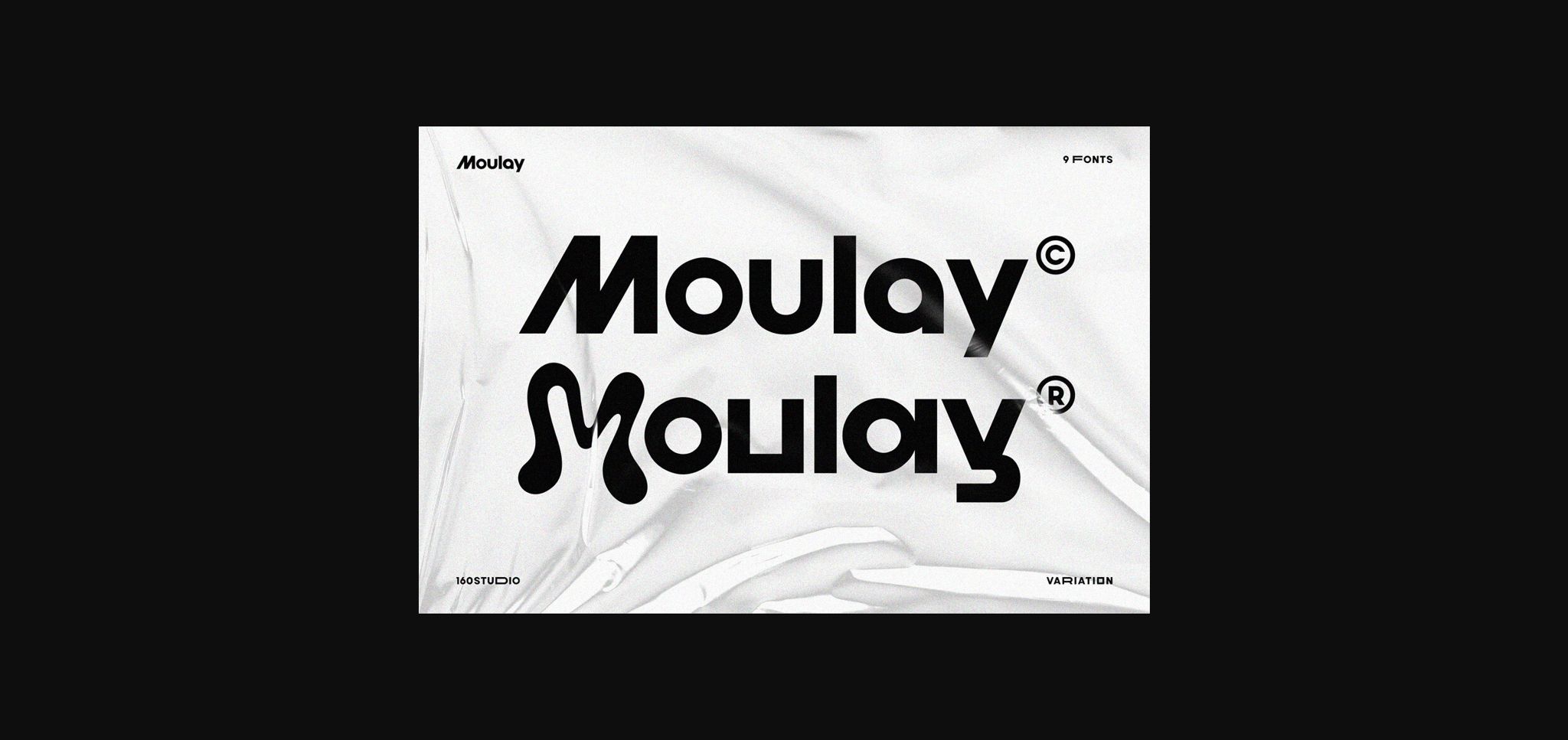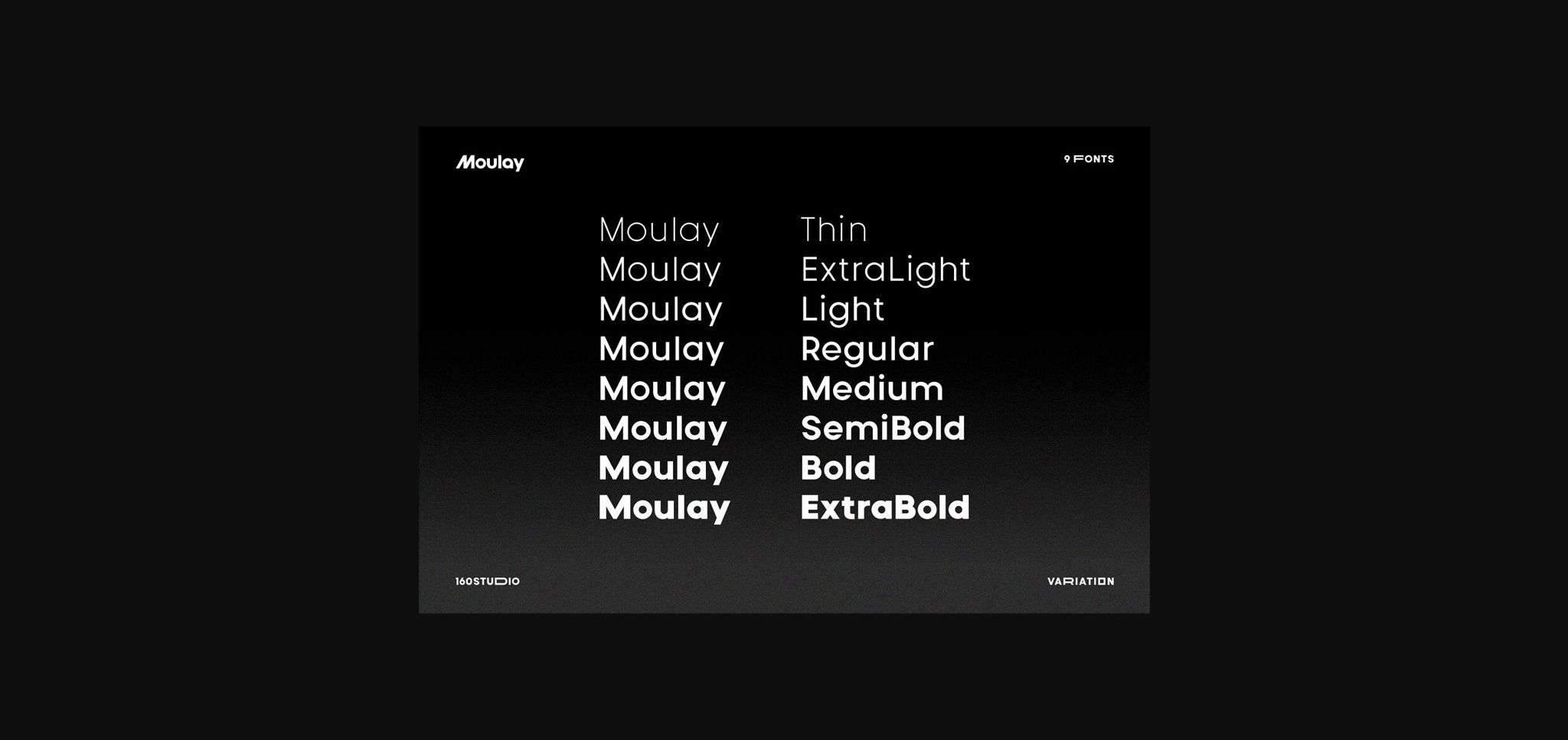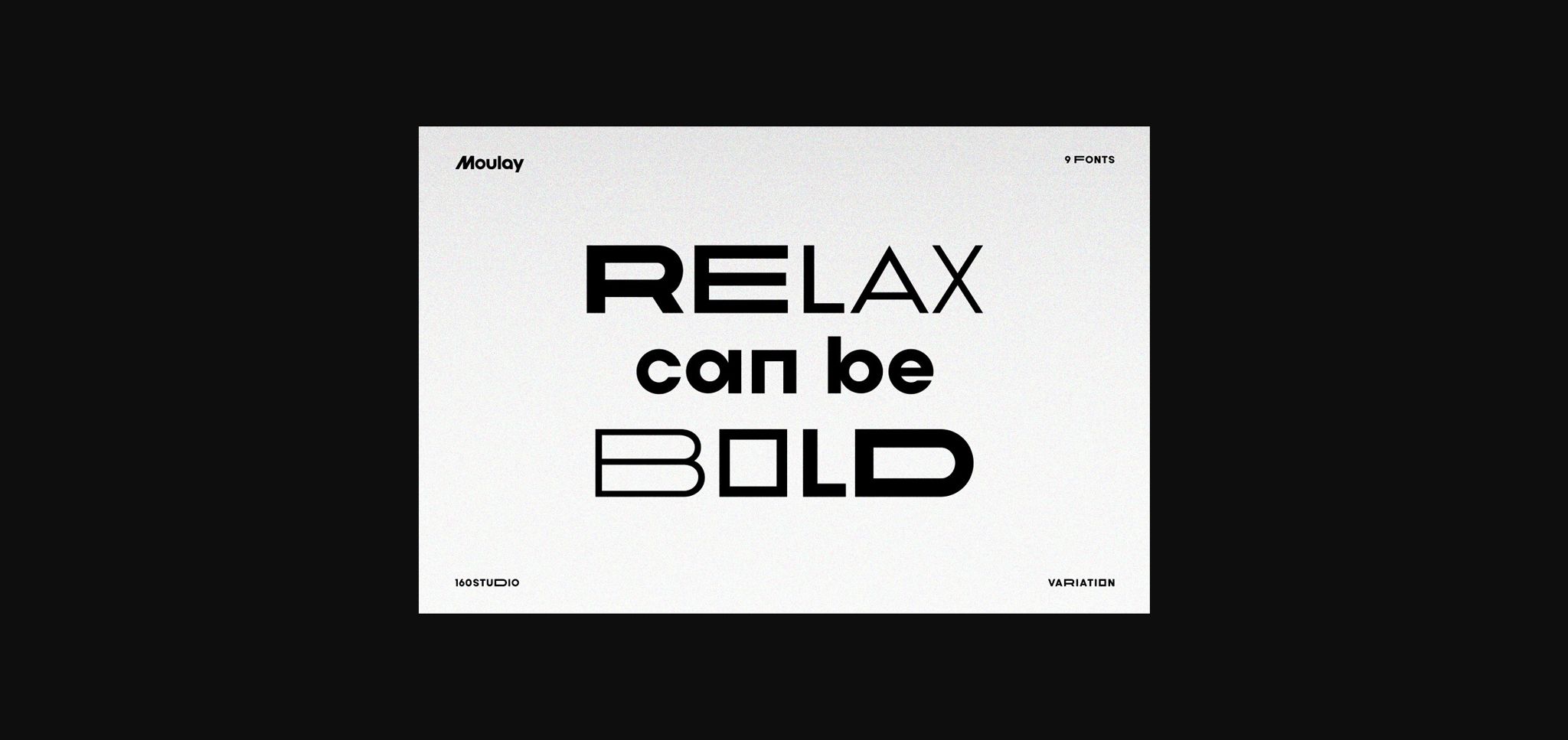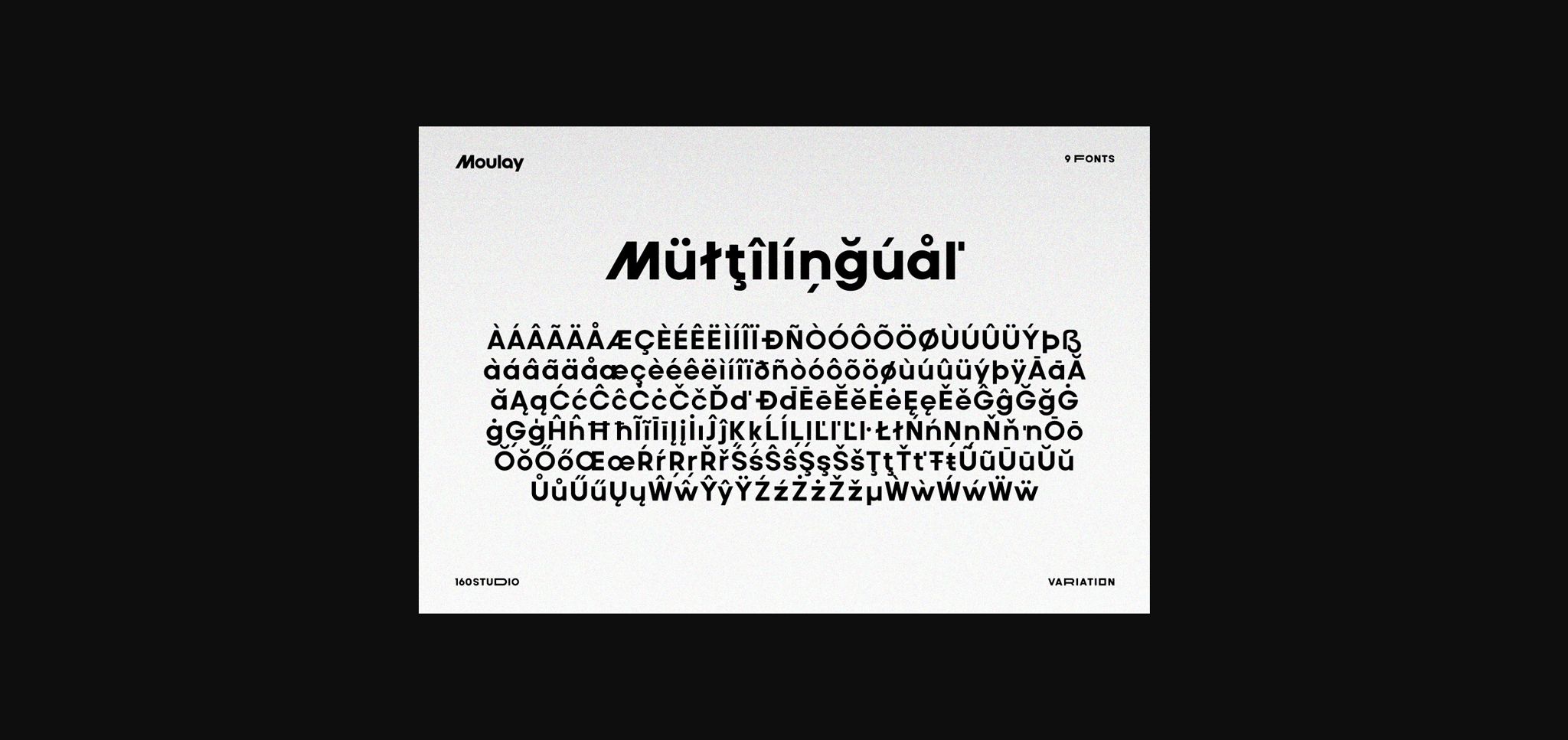
About Moulay Font
Moulay is a sans serif font family with multiple stylistic sets and variable weights.
Pair with a bubble version to make it playful yet serious and balanced. NOTE: Bubble version is for display only.
Moulay offers the power of a display face at large sizes and ease of legibility in smaller, long-form text, giving it flexibility for a broad range of uses.
Perfect for logos, branding, magazines, books, titles, displays, and even for long paragraphs.
Pair with a bubble version to make it playful yet serious and balanced. NOTE: Bubble version is for display only.
Moulay offers the power of a display face at large sizes and ease of legibility in smaller, long-form text, giving it flexibility for a broad range of uses.
Perfect for logos, branding, magazines, books, titles, displays, and even for long paragraphs.